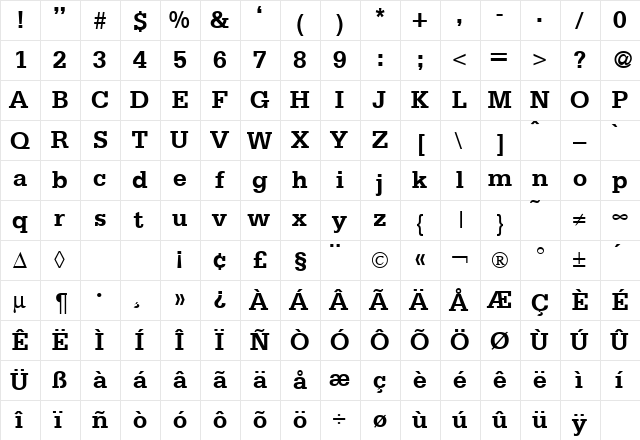
Sergeant Bold Font Preview
Sergeant Bold
Design Context for Sergeant Typeface
Sergeant takes a measured approach to typography — its balanced proportions and neutral character make it a reliable workhorse for both digital and print work. The heavy weight commands attention and anchors typographic hierarchies.